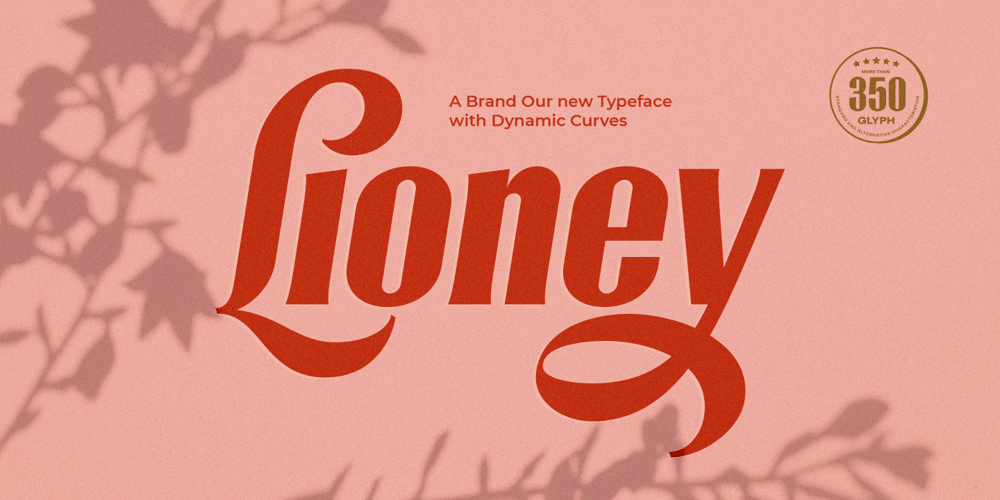
Lioney Font Family was designed by Adil Budianto and published by Surotype. Lioney contains 2 styles and family package options. Lioney is a display typeface with dynamic curve ,very suitable as to make a design choice for Headline, Movie Title, packaging, branding and more other creative project. Over 350 glyphs Lioney’s also has alternative characters such as Stylistic Alternates, Stylistic Set, and Swash variant.To enable the OpenType Stylistic alternates, you need a program that supports OpenType features such as Adobe Illustrator CS, Adobe Indesign & CorelDraw X6-X7. and more